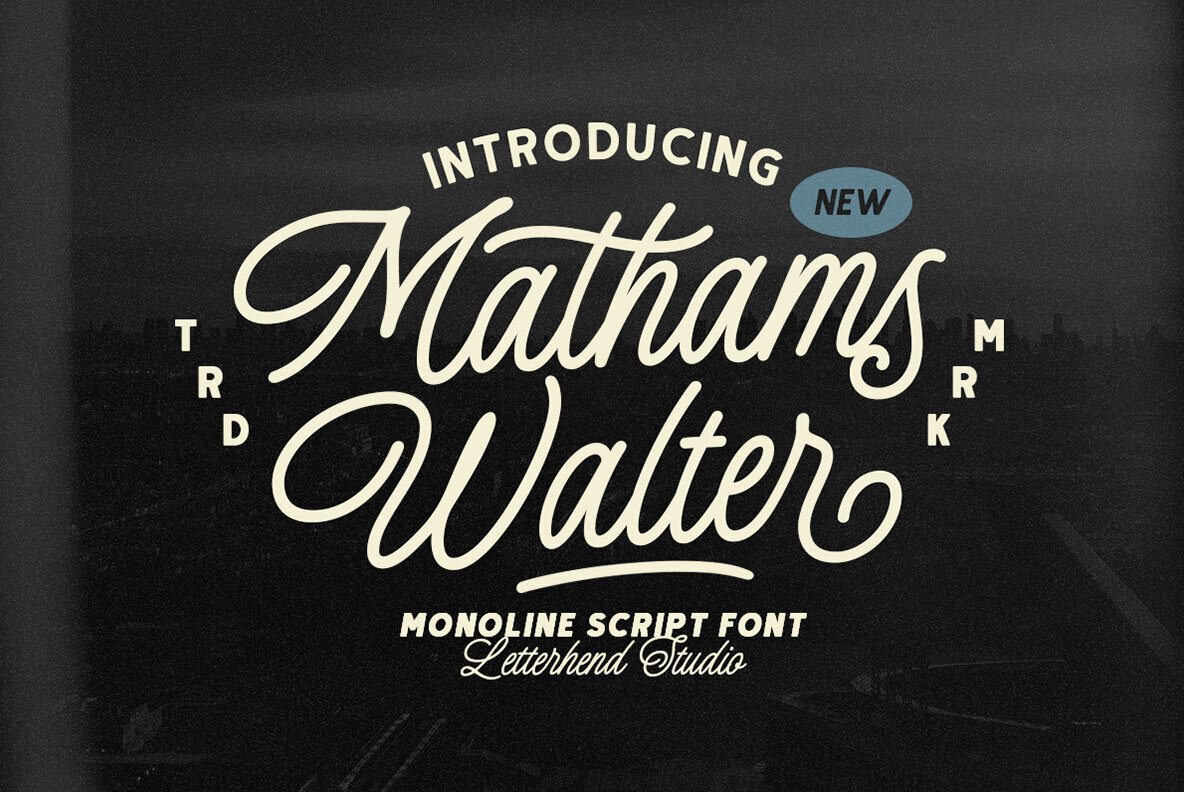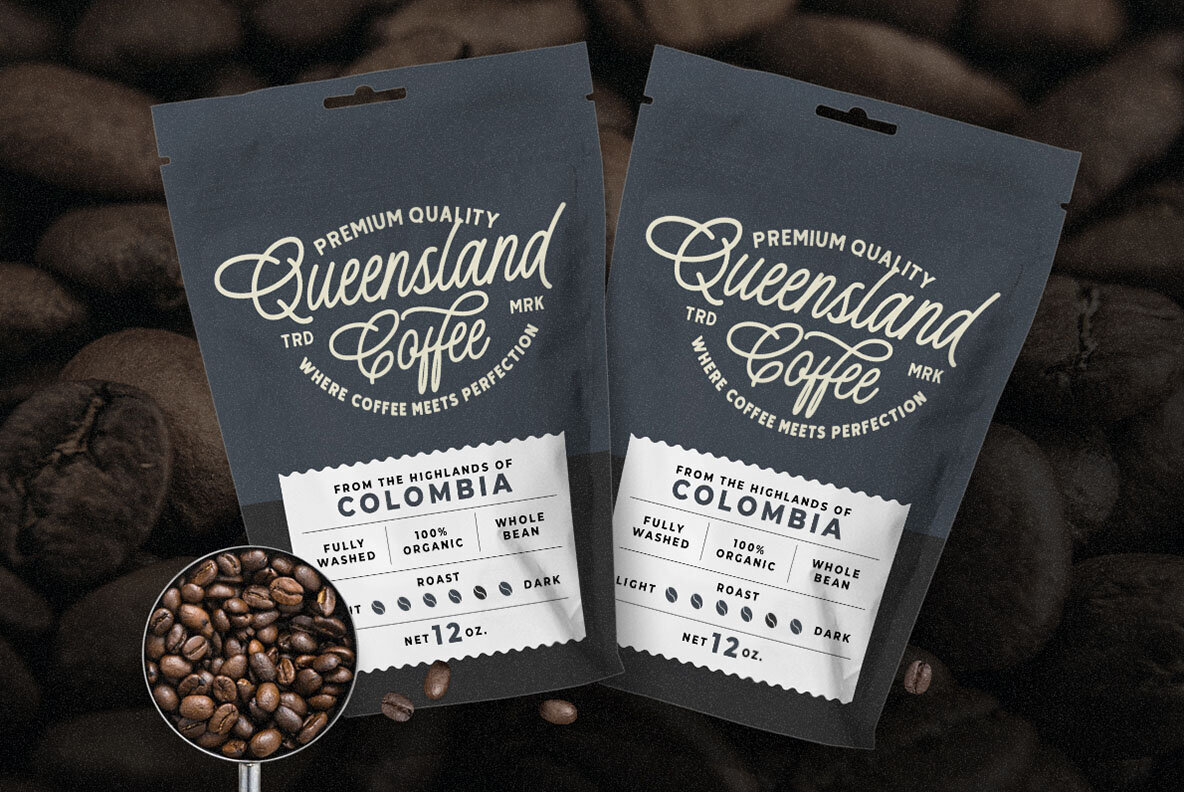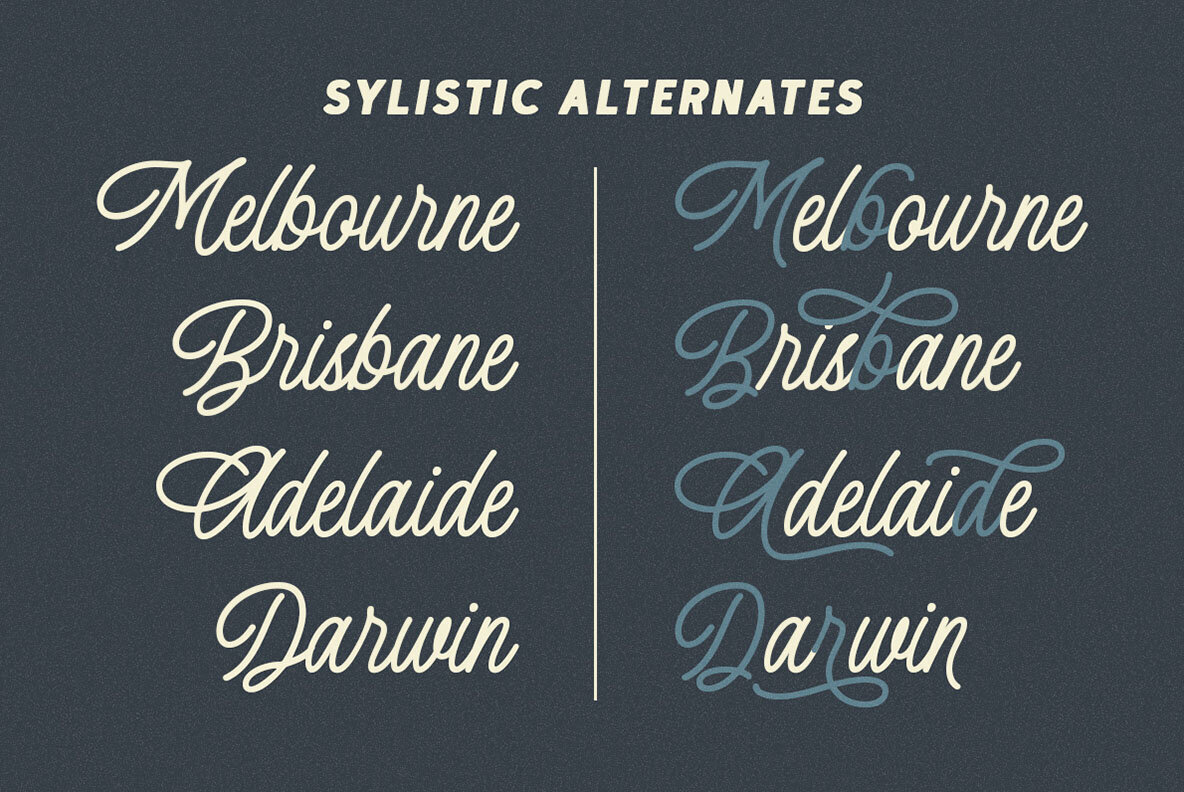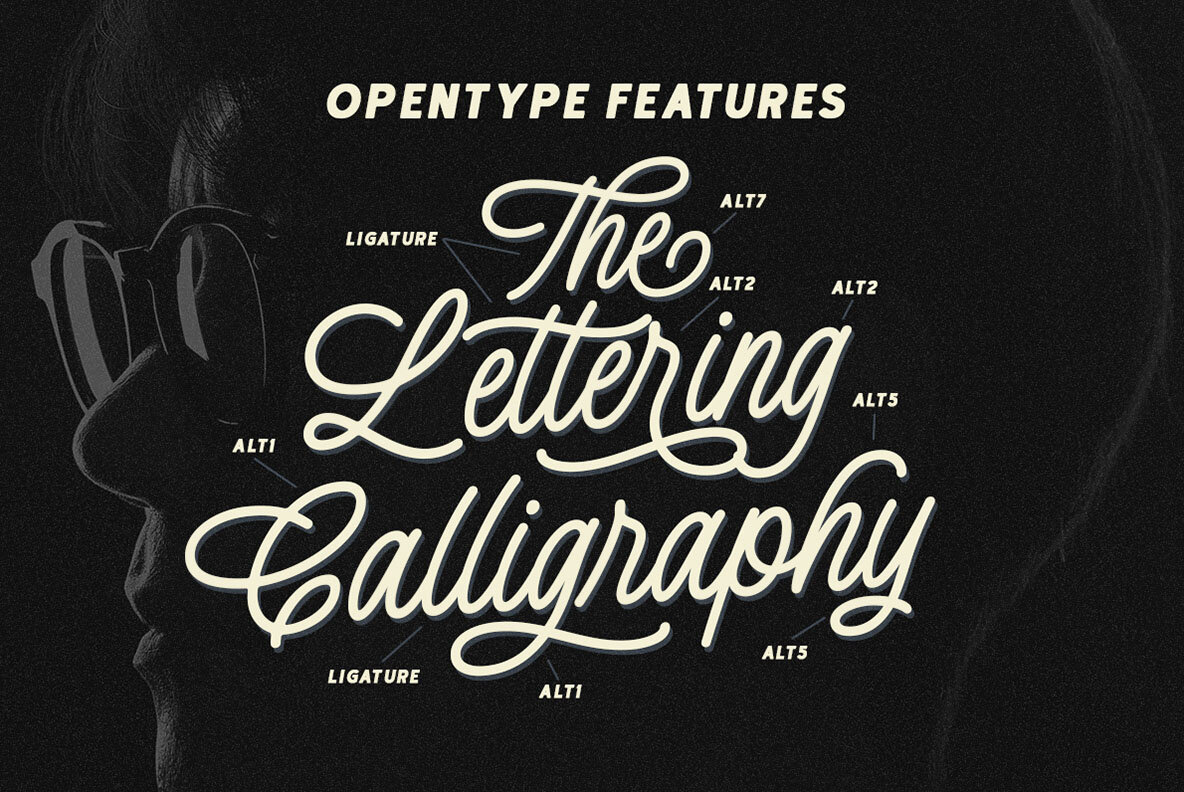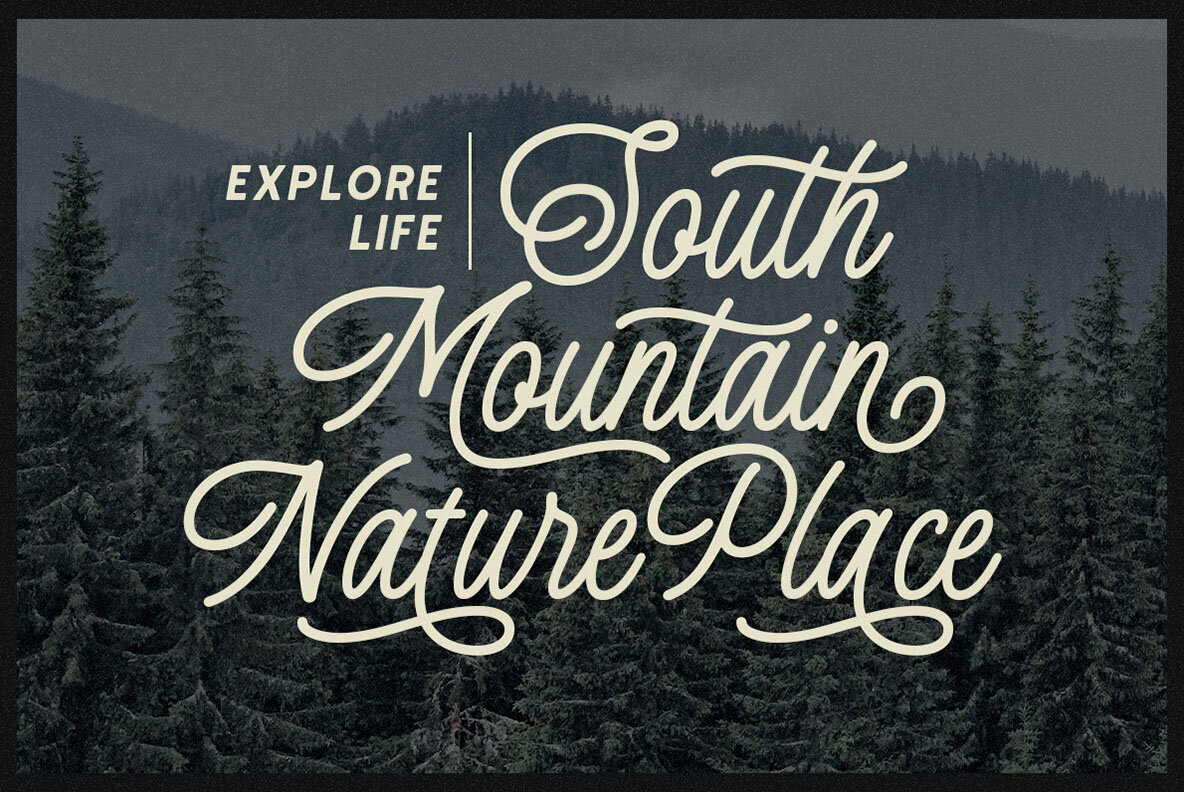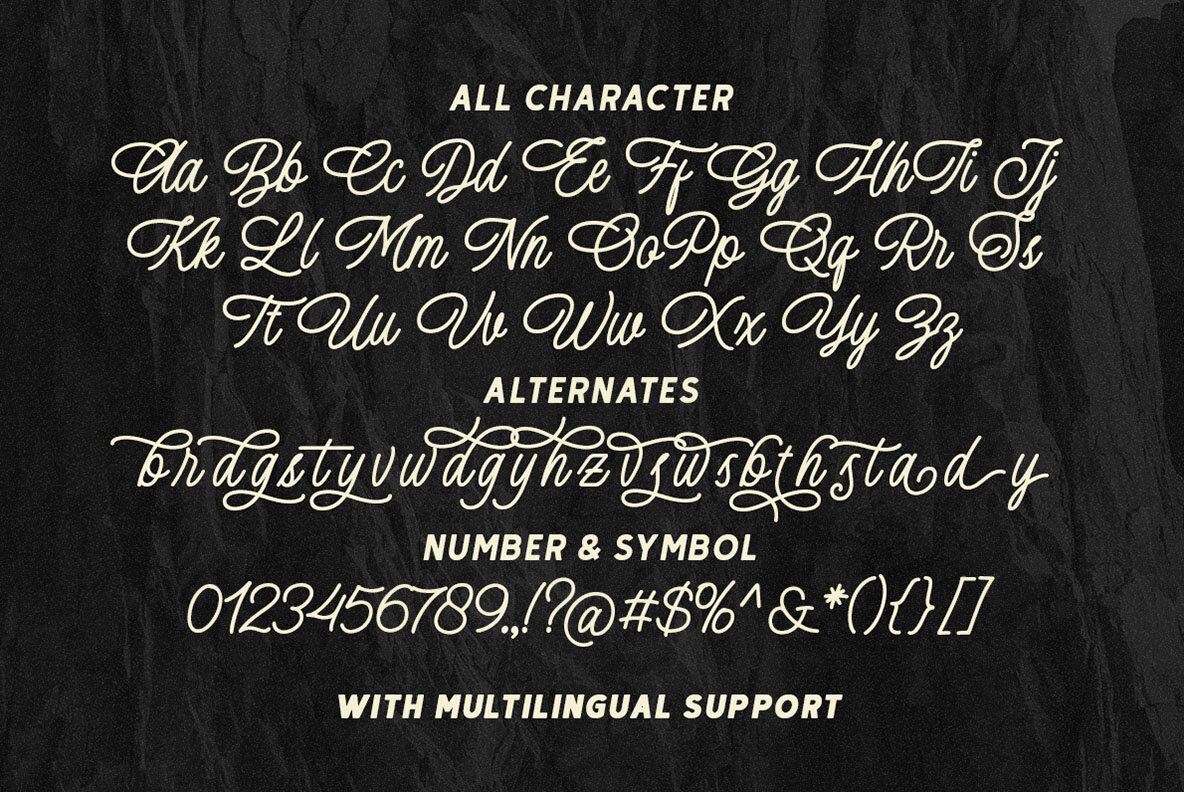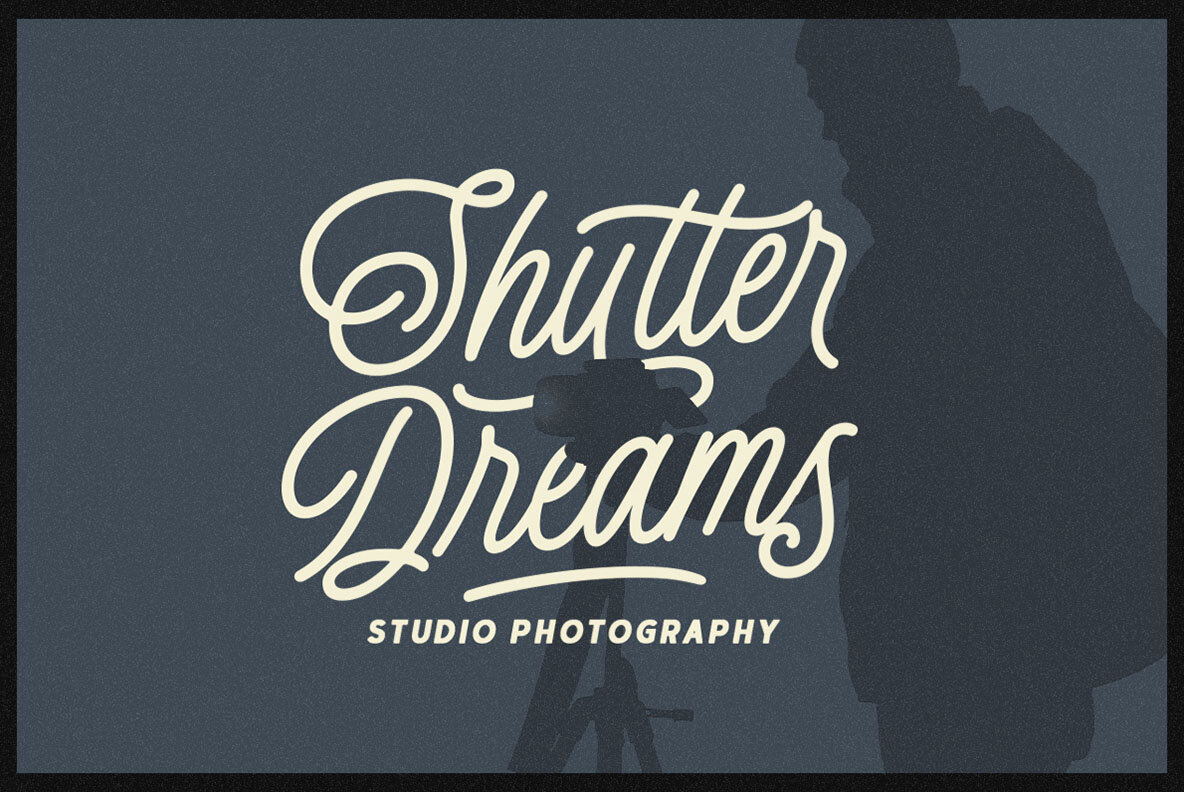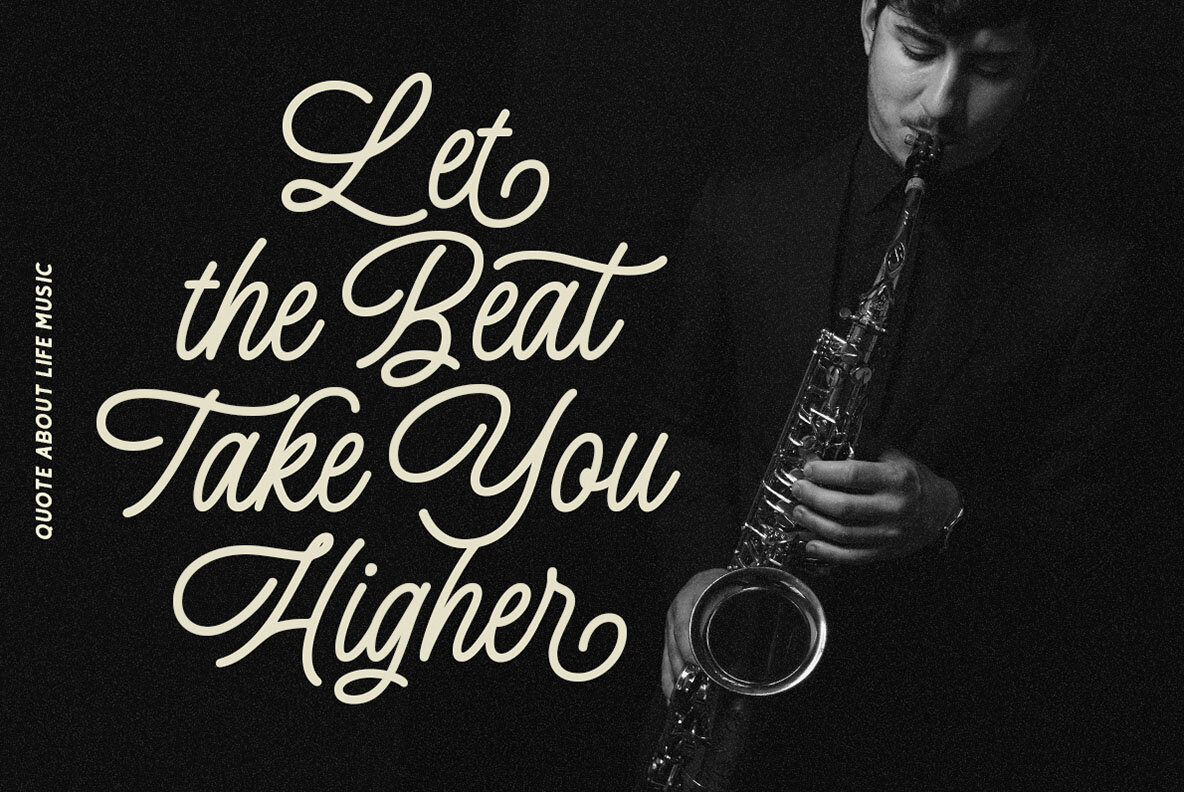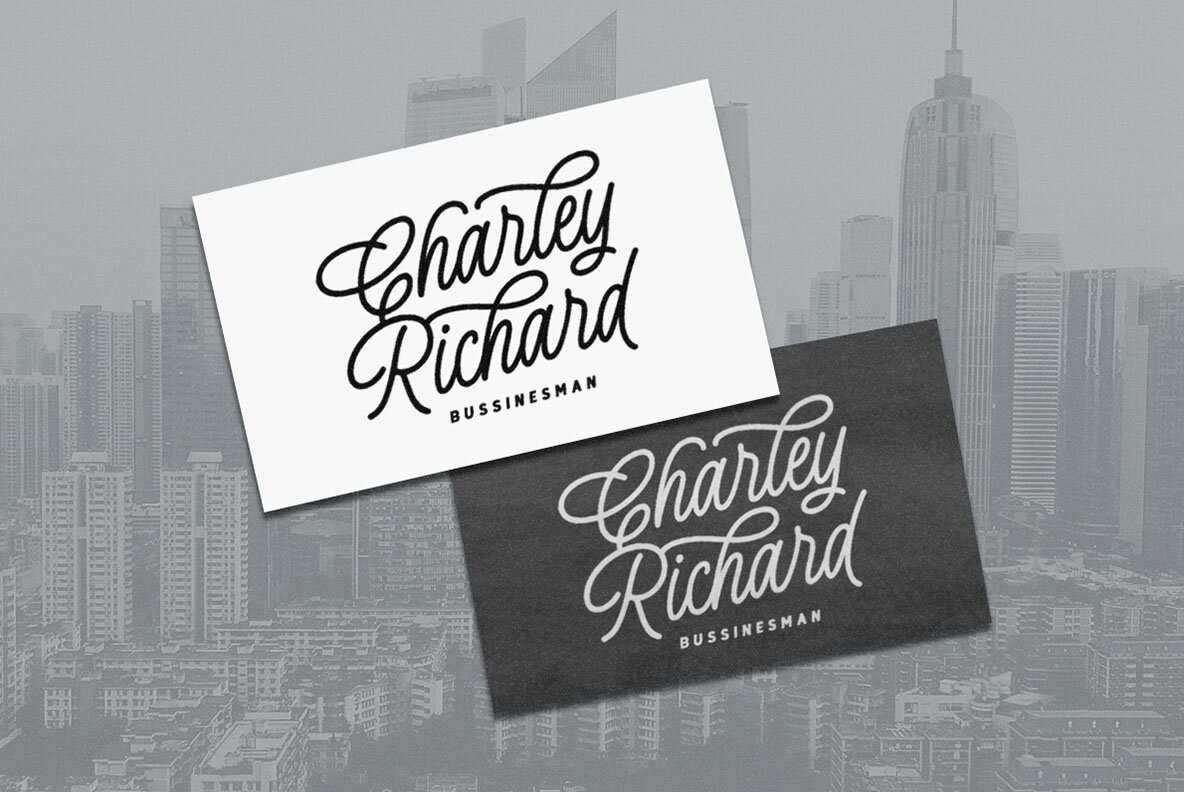
Mathams Walter Font
Mathams Walter Medium
This font is characterized by its script, cursive style that mimics traditional calligraphy and hand-lettering. It is highly decorative and elegant, making it suitable for formal invitations, branding, and occasions that require a touch of sophistication. The font displays a sense of fluidity and dynamism with its varied stroke weights and ornamental swashes, offering graphic designers a versatile yet classic option for projects that demand a personal, handcrafted feel.